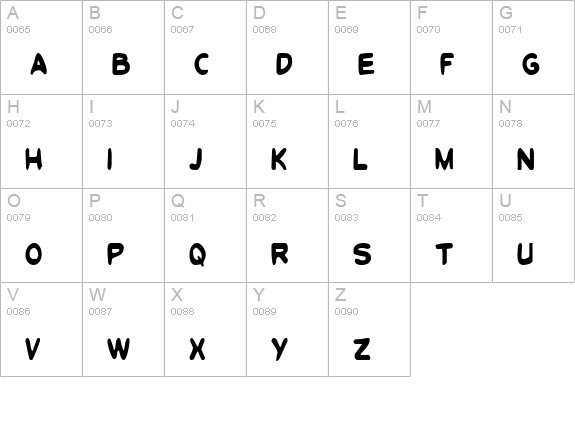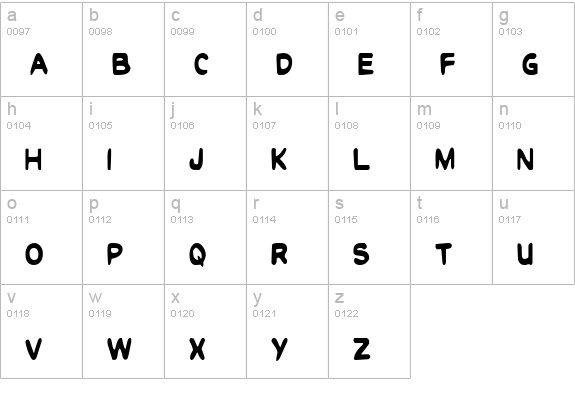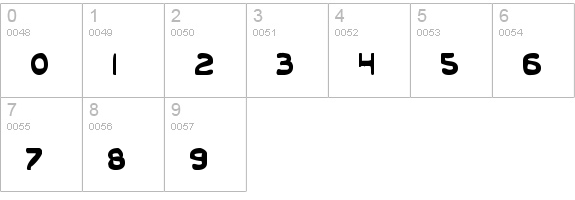
Toon Town Industrial Cond is a distinctive, condensed-width variant in the Toon typeface family \xE2\x80\x94 well suited to design and typography projects.
Toon Town Industrial Cond font is a playful and dynamic typeface that exudes a vibrant energy. Inspired by the world of cartoons and animated films, this font brings a touch of whimsy to any design project. Its condensed letterforms give it a sleek and modern look, perfect for headlines, logos, and display purposes. With its bold and exaggerated shapes, Toon Town Industrial Cond font captures the essence of fun and excitement. Each letter is carefully crafted to create a sense of movement, lending a sense of liveliness to your designs. Whether you're creating a poster for a children's event or designing a logo for a creative agency, this font will add a touch of playfulness and personality. And the best part? Toon Town Industrial Cond font is free! That's right, you can download this font for free at FontsMarket.com. It's a fantastic resource for designers and creatives who are looking to add a touch of whimsy to their projects without breaking the bank. So go ahead and unleash your creativity with Toon Town Industrial Cond font, freely available at FontsMarket.com.